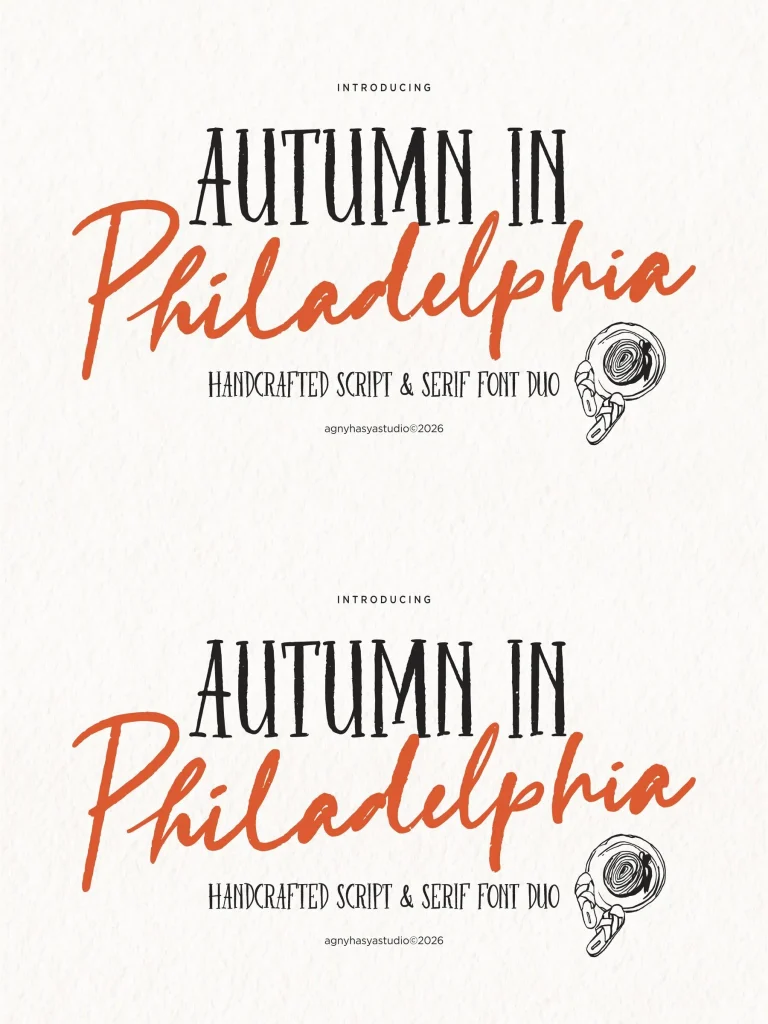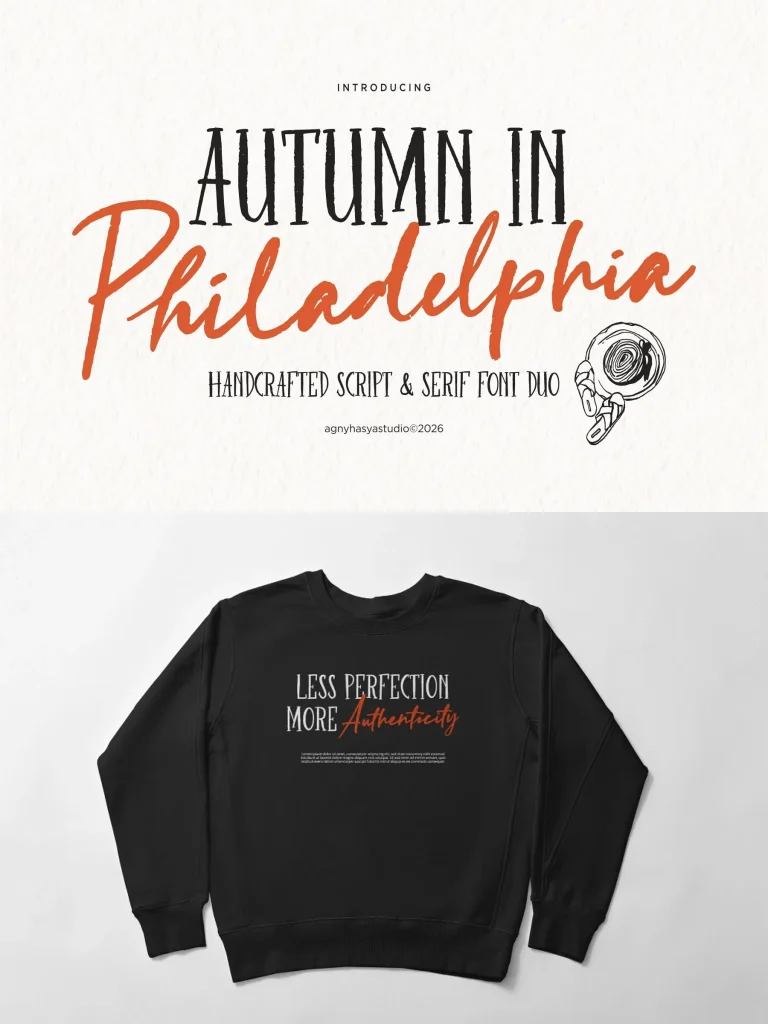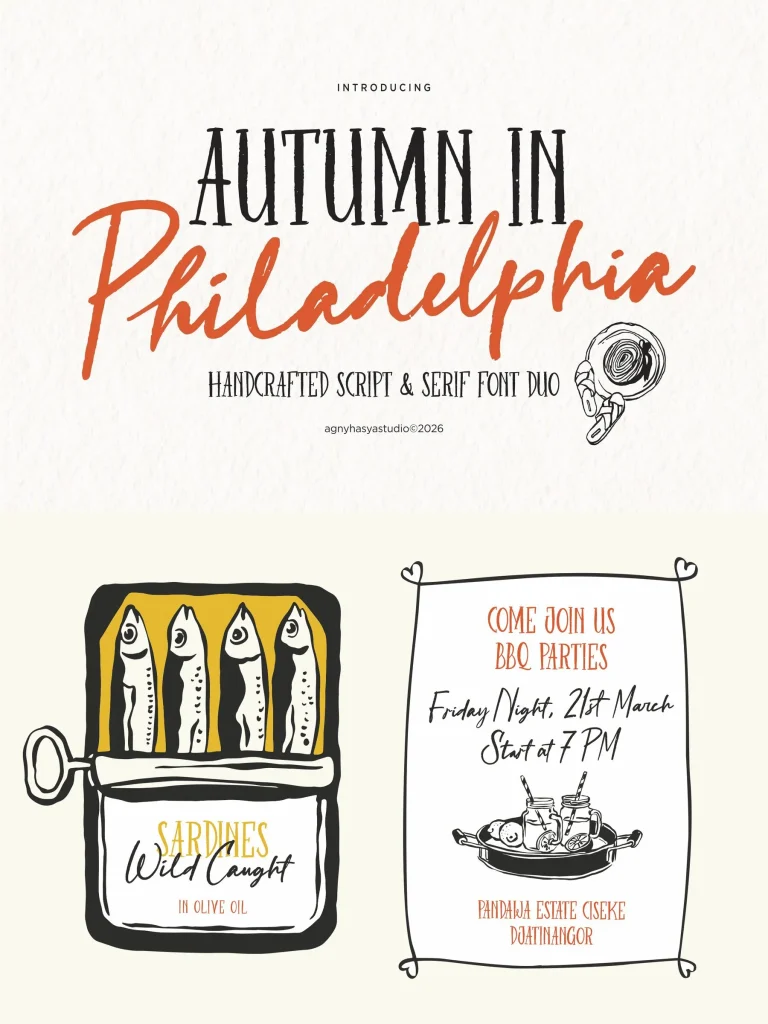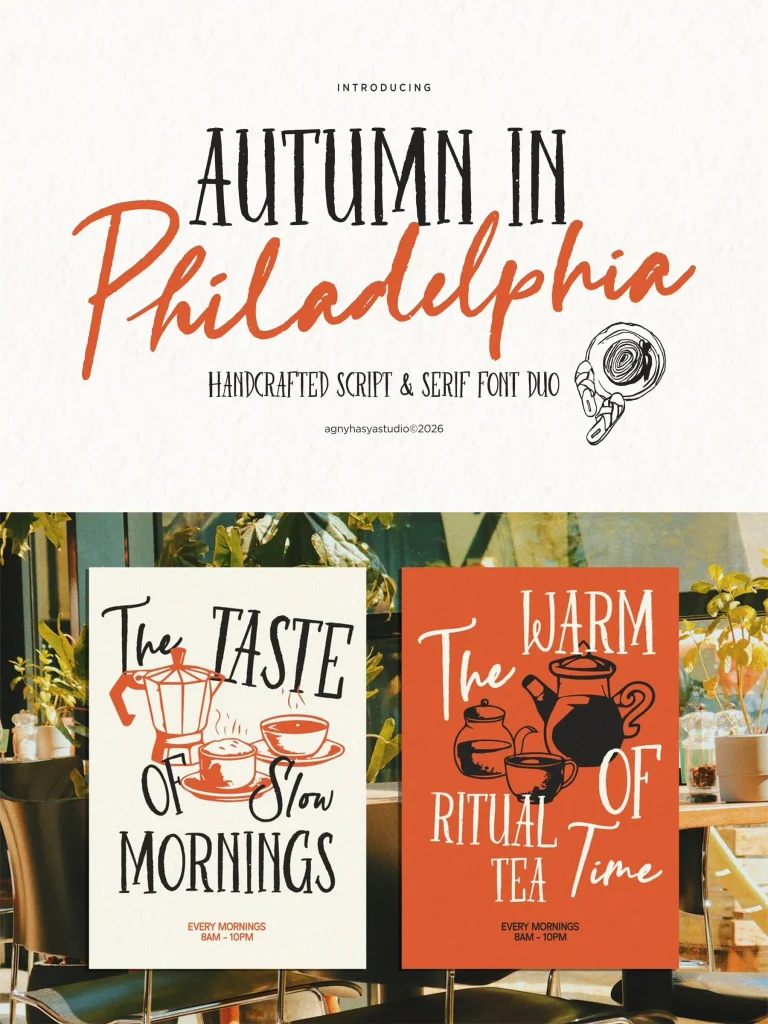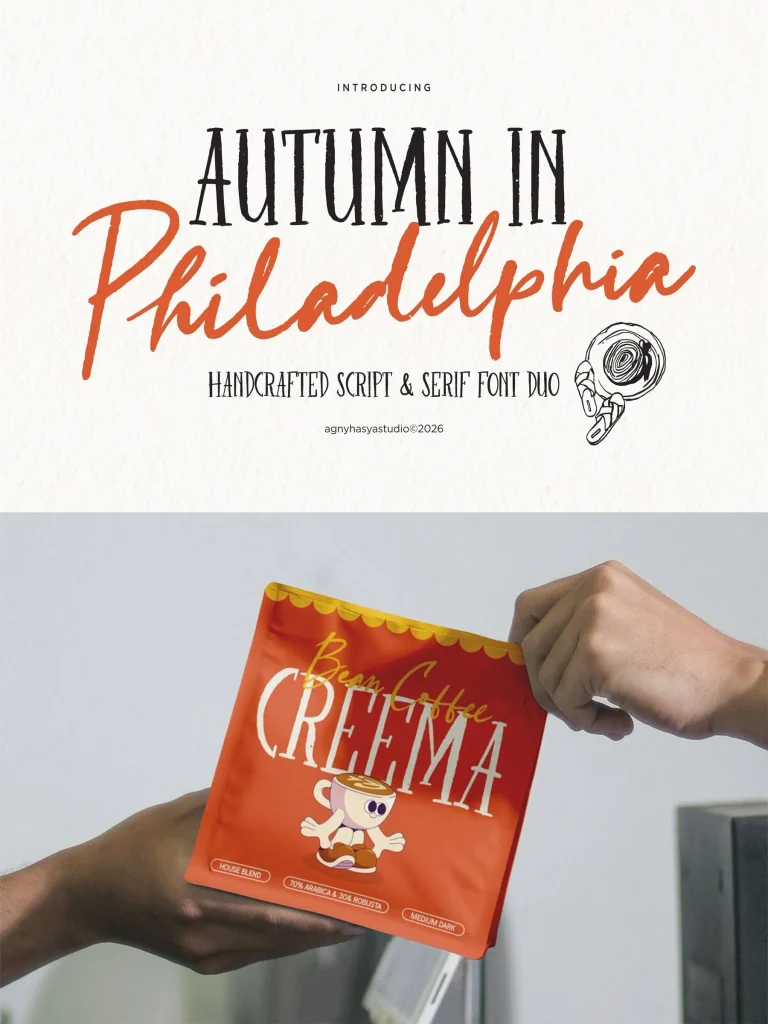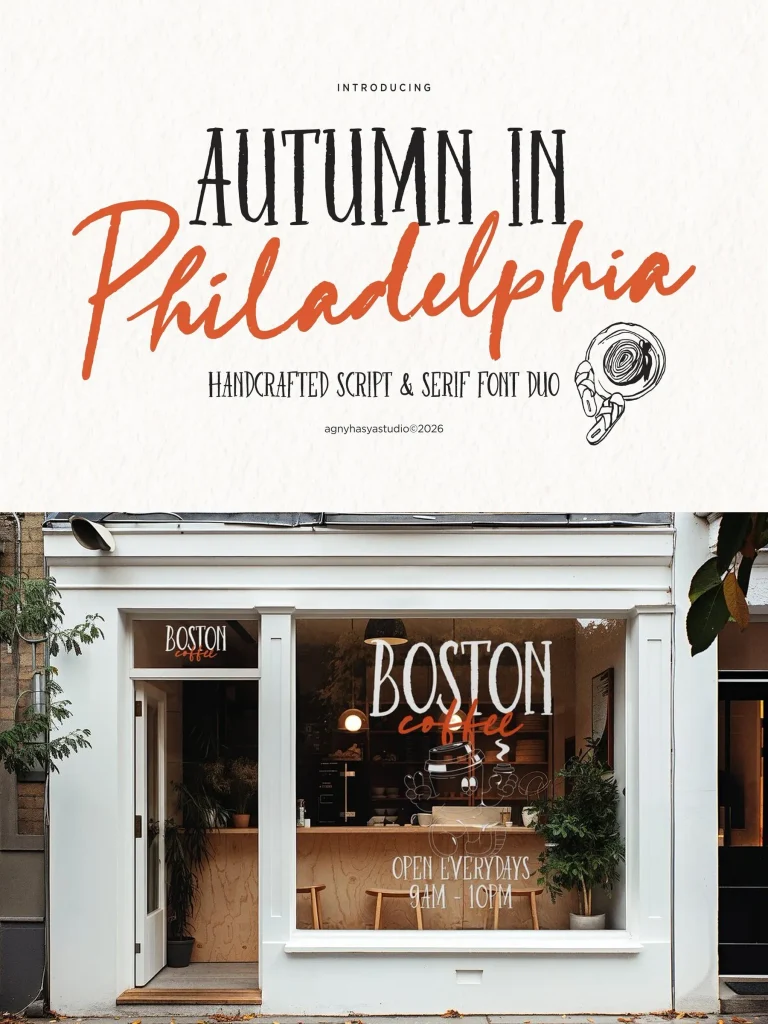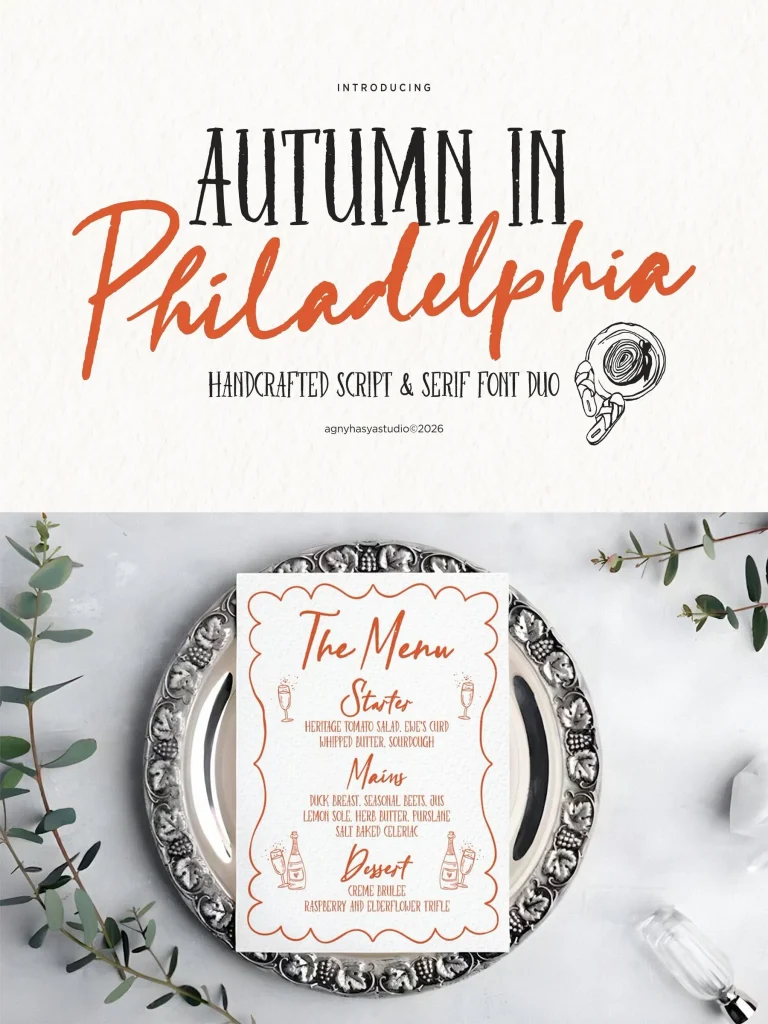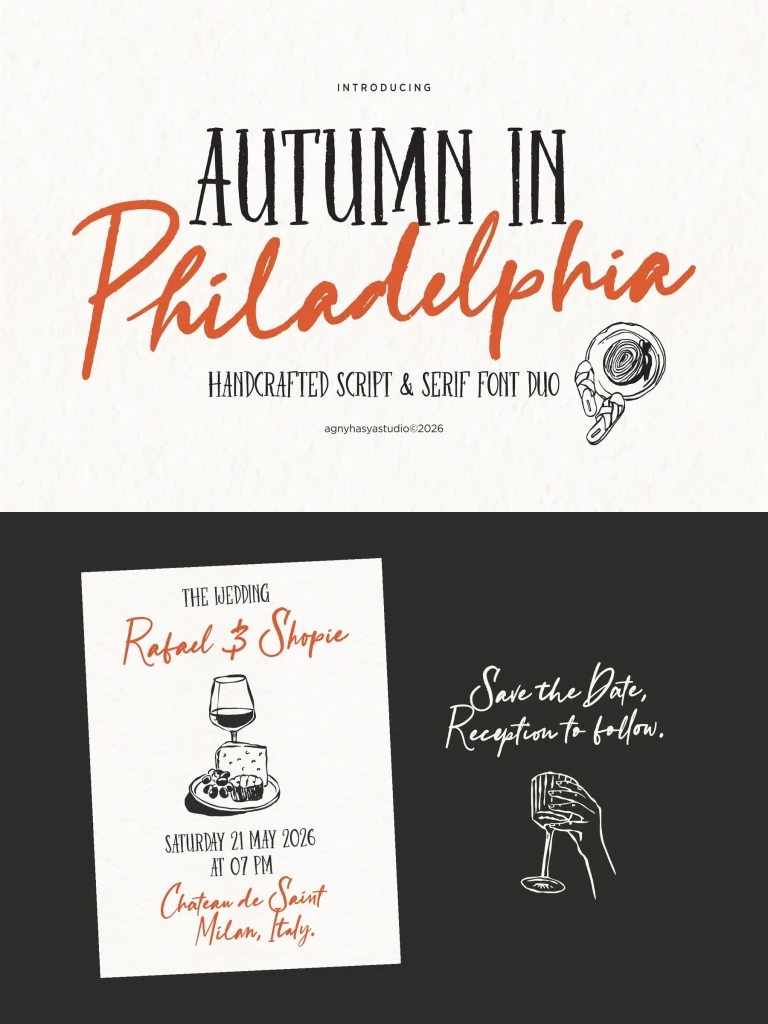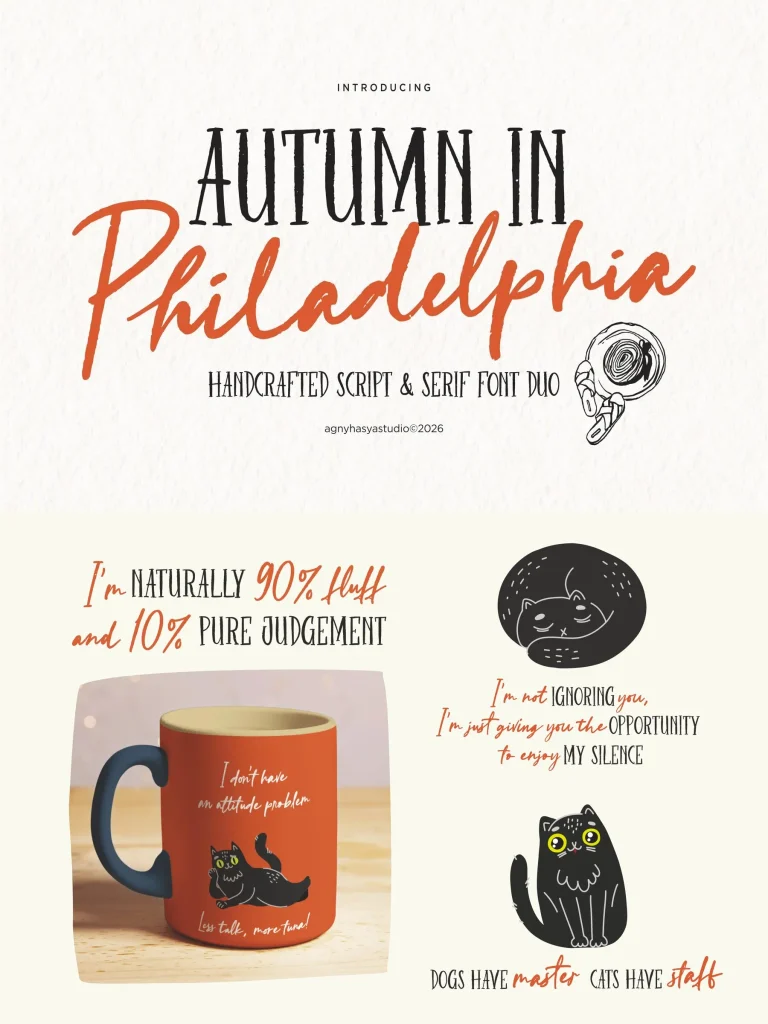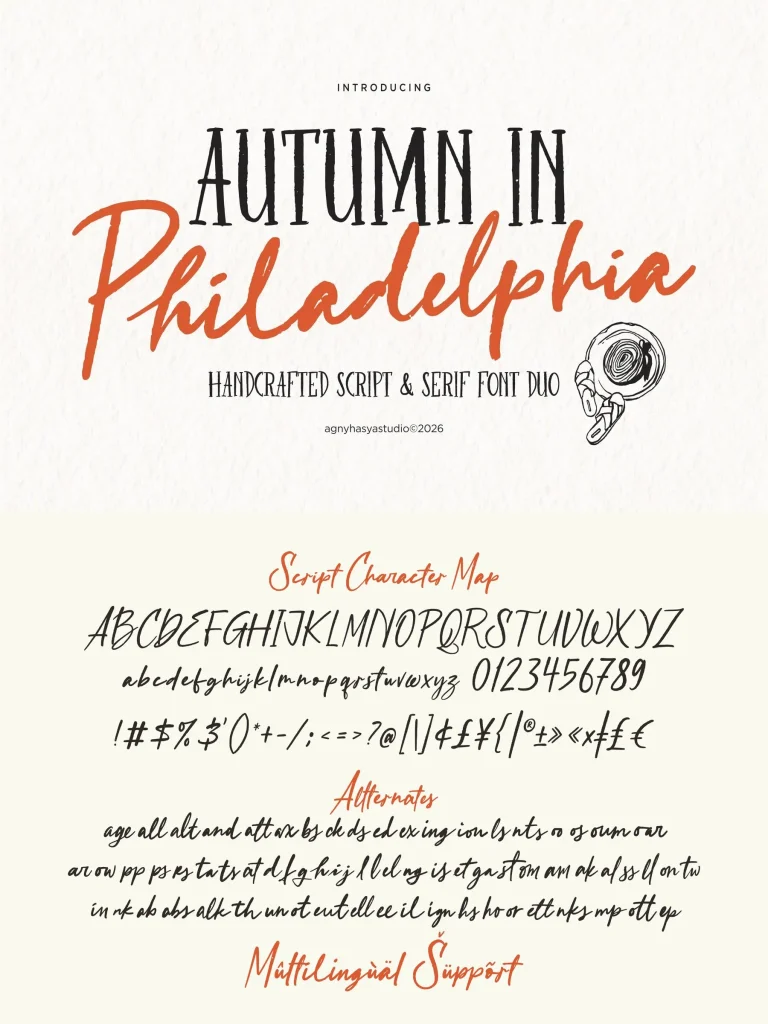
Autumn in Philadelphia Font
Autumn in Philadelphia — Warm Rustic Pairing
Looking for a handcrafted font duo for rustic branding, café logos, and artisan packaging? Autumn in Philadelphia pairs an organic handwritten script with a rustic vintage serif, giving designers a ready-made combination for warm branding, food packaging, wedding invitations, product labels, and artisan visuals. The script brings movement and personal charm, while the serif adds structure, readability, and nostalgic character. Together, they give typography a cozy, authentic, story-driven, and timeless feel.
Best Used For
Café logos and coffee shop branding
Artisan packaging and product labels
Rustic branding and handmade business identity
Food packaging and restaurant menus
Cookbook covers and recipe cards
Farmers’ market labels and organic products
Wedding invitations and romantic stationery
Quote posters and editorial layouts
Apparel graphics and handmade merchandise
Boho, cottagecore, and farmhouse-inspired designs
Boutique branding and creative studio visuals
Social media graphics with warm vintage style
Behind the Design
Autumn in Philadelphia combines two complementary styles in one beautiful font duo: an expressive handwritten script and a quirky rustic serif. This pairing works naturally for designers, café owners, wedding stationers, food brands, handmade businesses, and creative studios that need typography with an authentic handcrafted feel. Use it for a logo, packaging, invitation, menu, editorial layout, or any project that calls for warmth, nostalgia, and handmade character.
Handcrafted script and serif font duo
Organic handwritten script style
Rustic vintage serif letterforms
Built-in font pairing for easy design
Uppercase and lowercase letters
Multilingual support